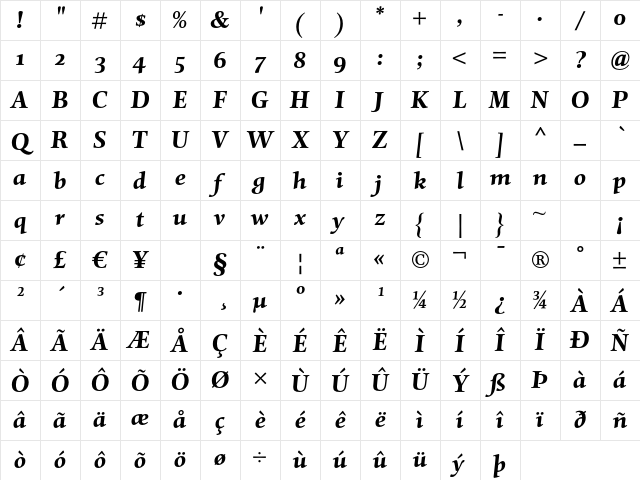
Mentor Bold Italic OsF Free Font
Mentor Bold Italic OsF
Style: Bold Italic OsF
Design Context for Mentor
Mentor is a composed and adaptable typeface that performs quietly and consistently across a wide range of design contexts. The slanted form adds forward momentum and visual energy. Its bold stroke weight gives it real presence on the page.